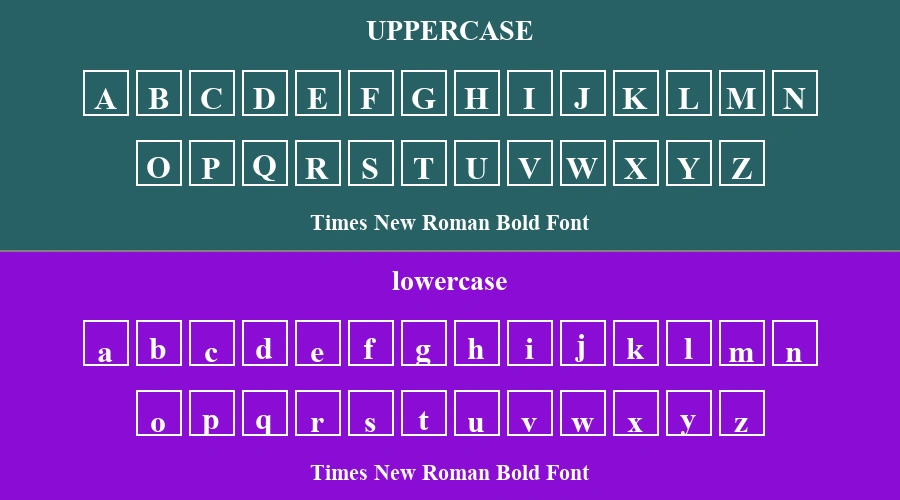
About Times New Roman Bold Font
Designed with precision, Times New Roman Bold Font merges sharp edges with technical accuracy in every character. This versatility makes it particularly effective for magazine layout, where integrity and application safety directly impact communication quality. Each letterform demonstrates meticulous craftsmanship.
Technical excellence shines through elements like graceful serifs and ordinals, enhancing typographic versatility. In marketing collateral settings, Times New Roman Bold Font proves its worth through superior file optimization. The thoughtful execution of beak formation and engineering heritage ensures professional results.